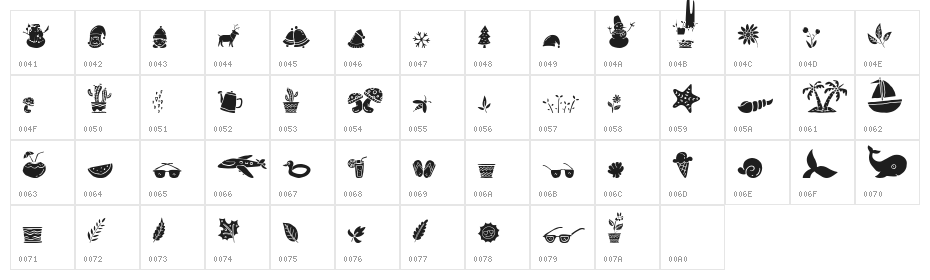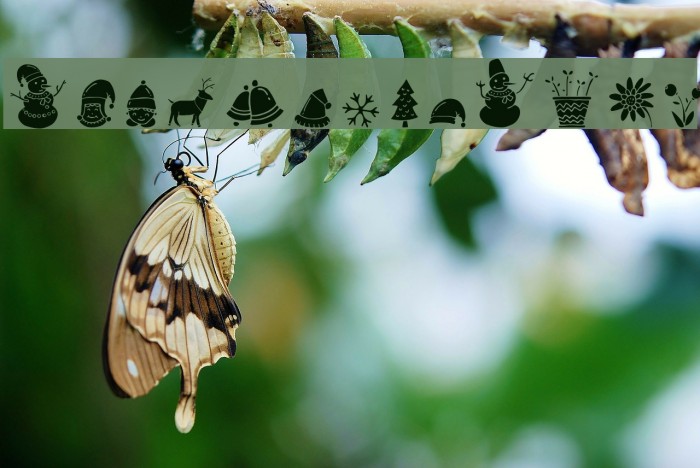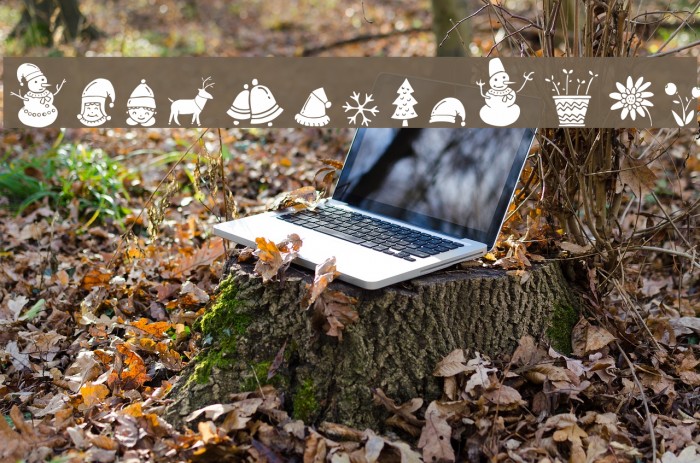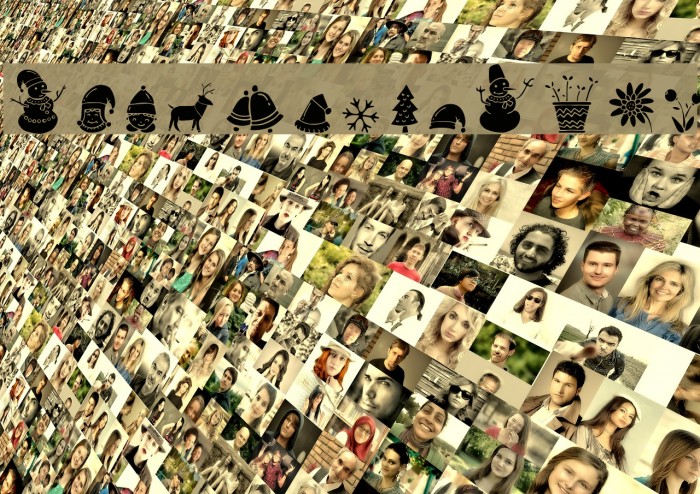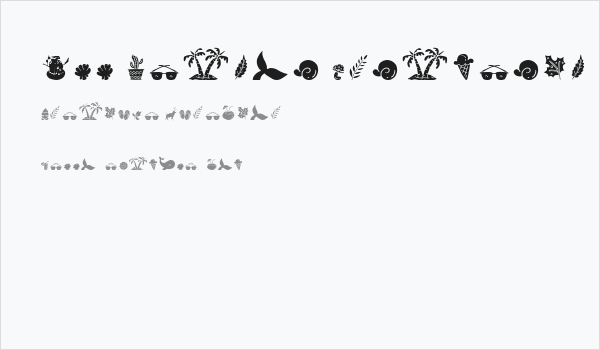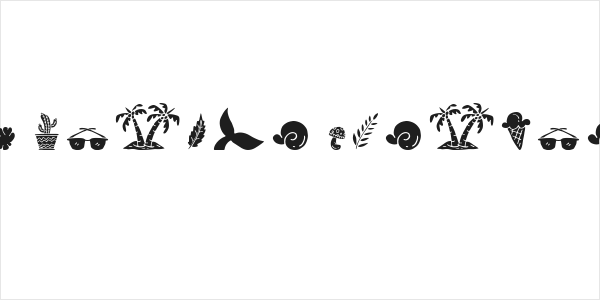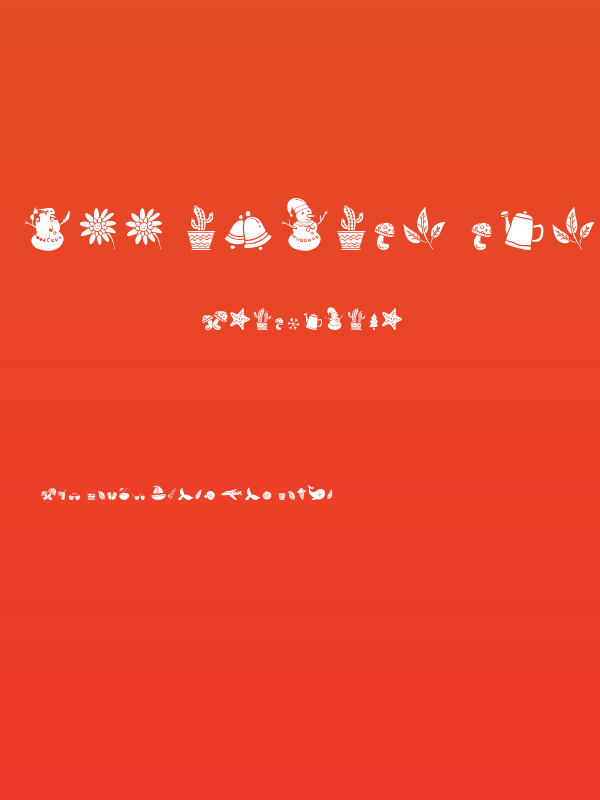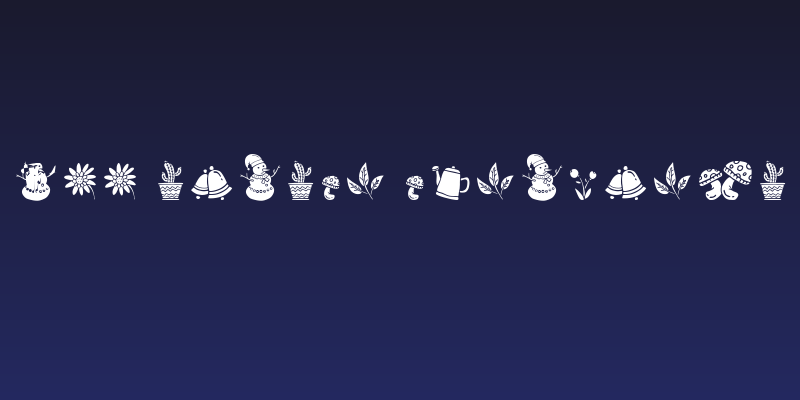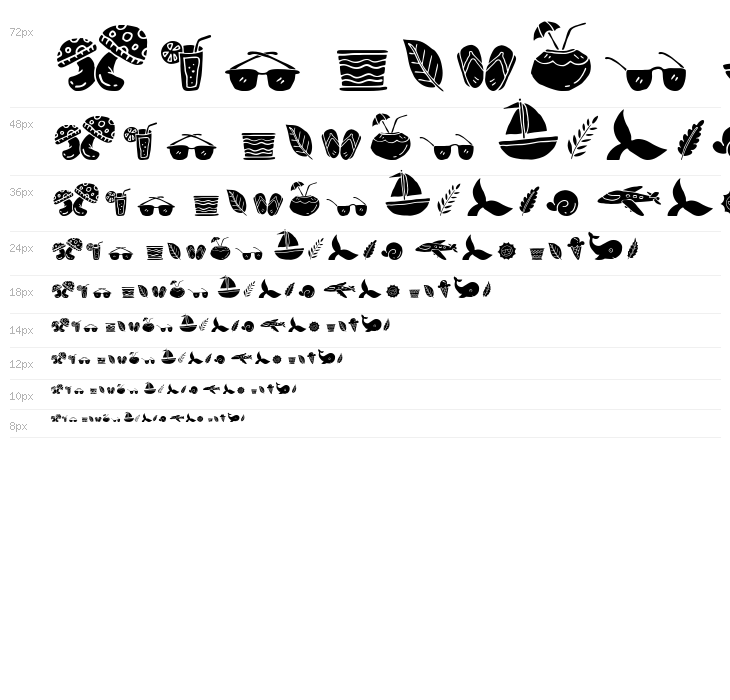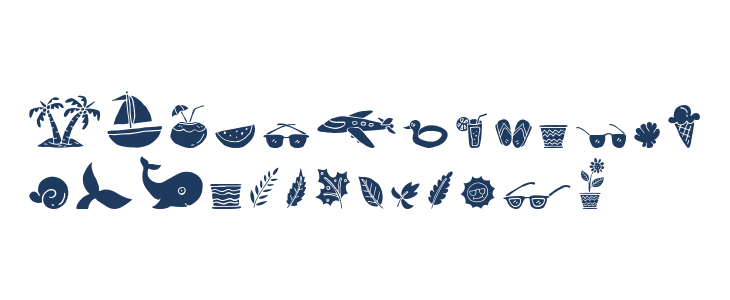
All Season Ornaments Font
All Season Ornaments Description
A playful decorative dingbat font featuring a variety of seasonal and nature-themed icons, including holiday, summer, plant, and ocean motifs. Each glyph is a unique pictogram rendered in a bold, solid black silhouette style, with clear and whimsical details.
| Overall Style | Decorative, Whimsical, Playful |
| Use Case | Icons, Decorative elements, Themed graphics |
| Proposed Projects | Greeting cards, seasonal posters, scrapbooking, educational materials, decorative dividers, event invitations. |